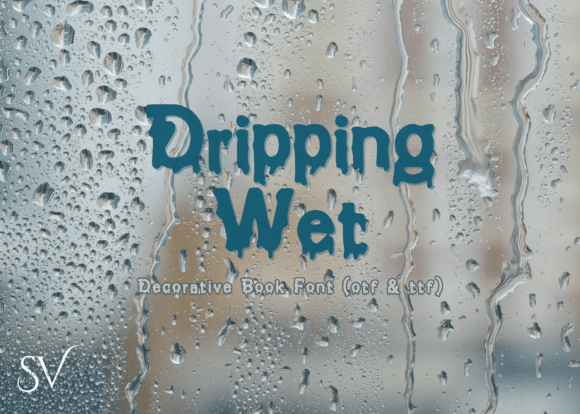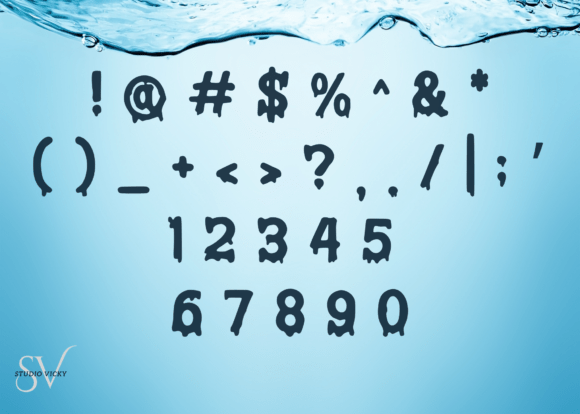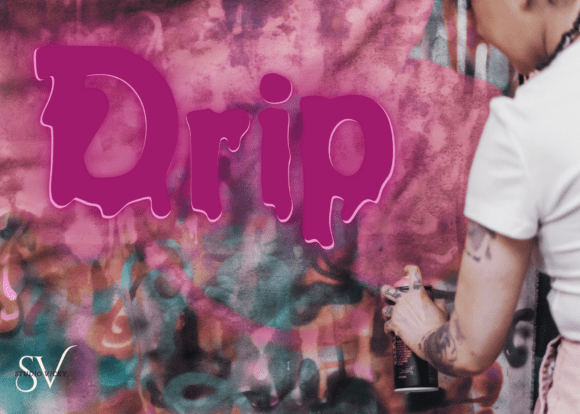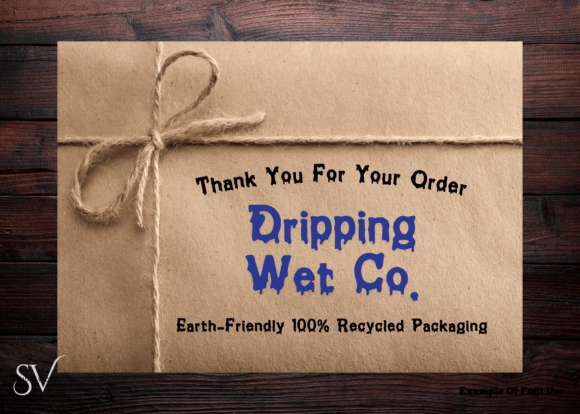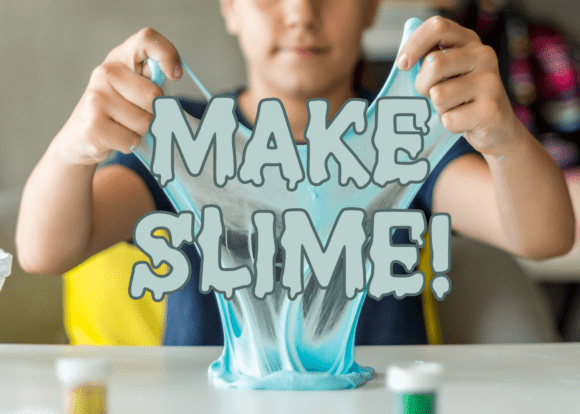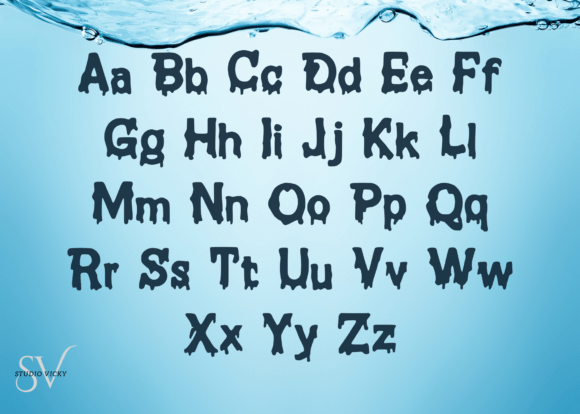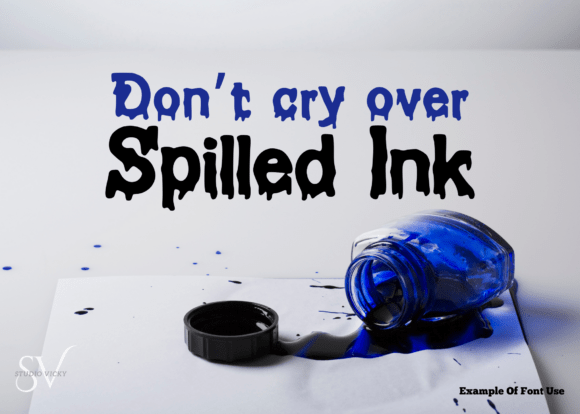
Unleash the Slime: Exploring the Dripping Wet Font for Spooky and Playful Designs
Are you ready to add a dash of spooky fun to your designs? Look no further than the Dripping Wet font, a bold and decorative typeface that’s perfect for haunted house signs, monster bash invitations, and slime-soaked party graphics. With its gooey, dripping forms and splashy style, this font is sure to make a splash in the world of design.
The Perfect Blend of Creepy and Playful
The Dripping Wet font strikes the perfect balance between creepy and playful, delivering maximum gross-out charm with a mischievous wink. Its bold strokes and unruly drips make it a natural choice for Halloween posters, horror titles, mad scientist potion labels, or even hilariously messy kids’ party themes. Whether you’re a designer, crafter, or simply a fan of all things spooky, this font is sure to inspire your next project.
Key Features of the Dripping Wet Font
• Gooey, drip-filled letterforms with a splashy edge that adds a touch of slime to your designs
• Perfect for Halloween, horror, or slime-inspired designs, including haunted house signs, monster bash invitations, and slime-soaked party graphics
• Bold, eye-catching strokes that are easy to read and add a touch of drama to your designs
The Dripping Wet font is perfect for a wide range of design projects, from digital graphics to print materials. Here are just a few ideas to get you started:
• Halloween posters and flyers that will make your party or event stand out
• Horror titles and graphics that will add a touch of spooky fun to your horror-themed projects
• Mad scientist potion labels that will add a touch of whimsy to your science-themed designs
• Slime-soaked party graphics that will make your kids’ party invitations and decorations a hit
• Cuttable craft projects that will add a touch of slime to your DIY crafts
Why Choose the Dripping Wet Font?
So why choose the Dripping Wet font for your next design project? Here are just a few reasons:
• Unique and eye-catching design that will make your projects stand out
• Perfect for a wide range of design projects, from digital graphics to print materials
Get Ready to Slime Your Way to Design Success!